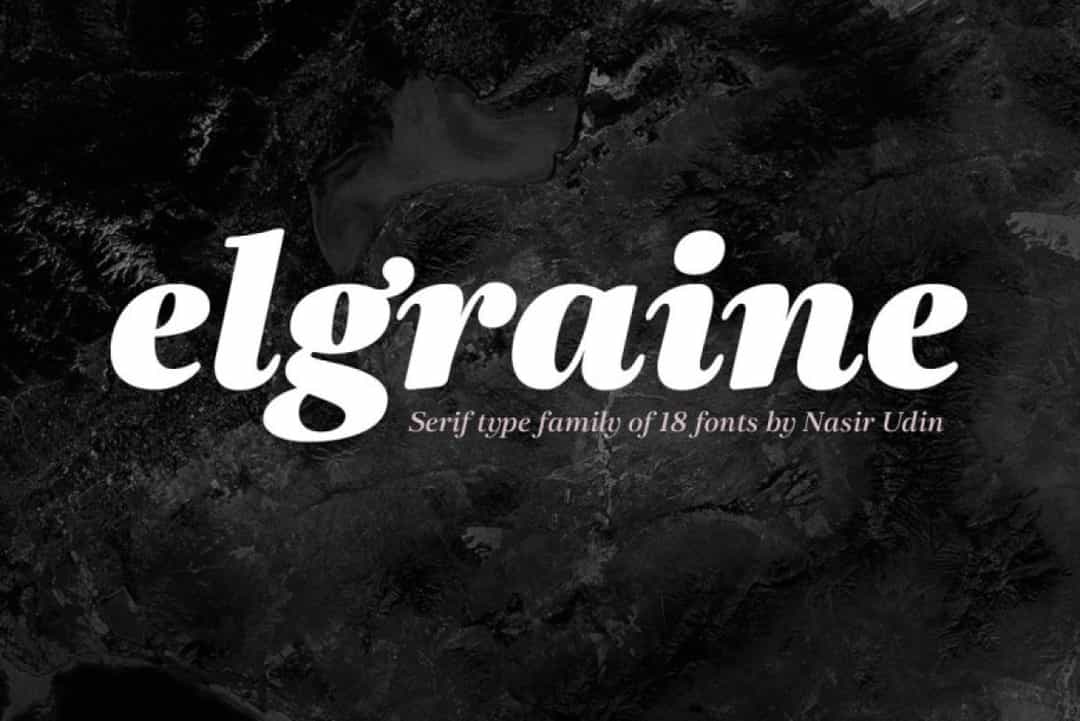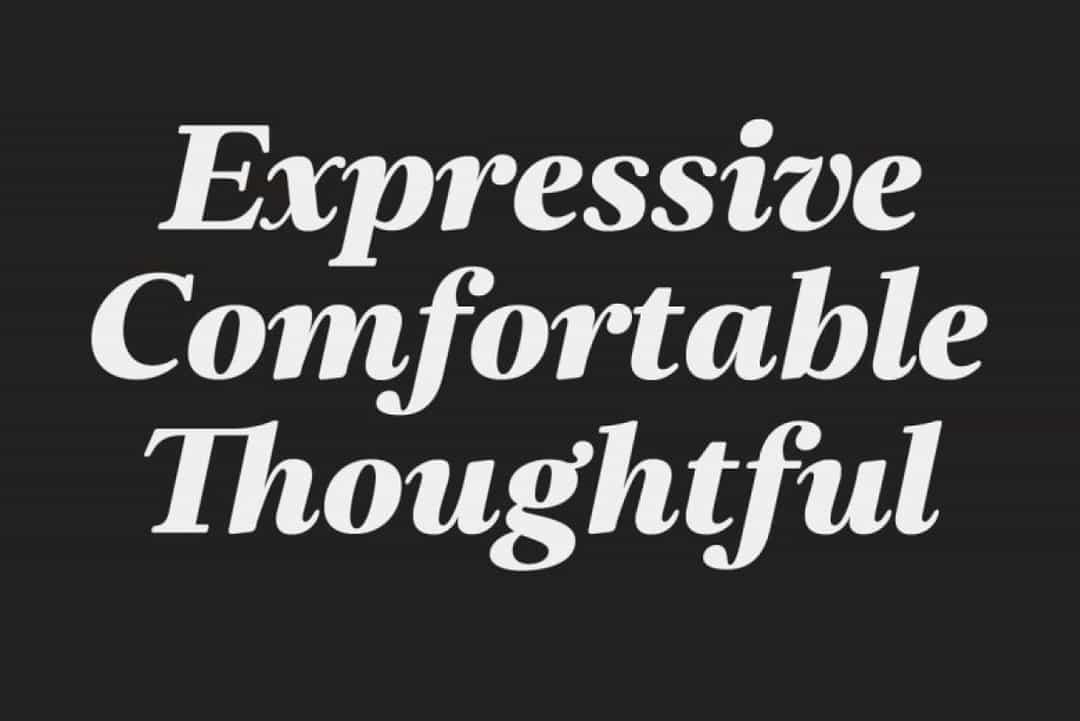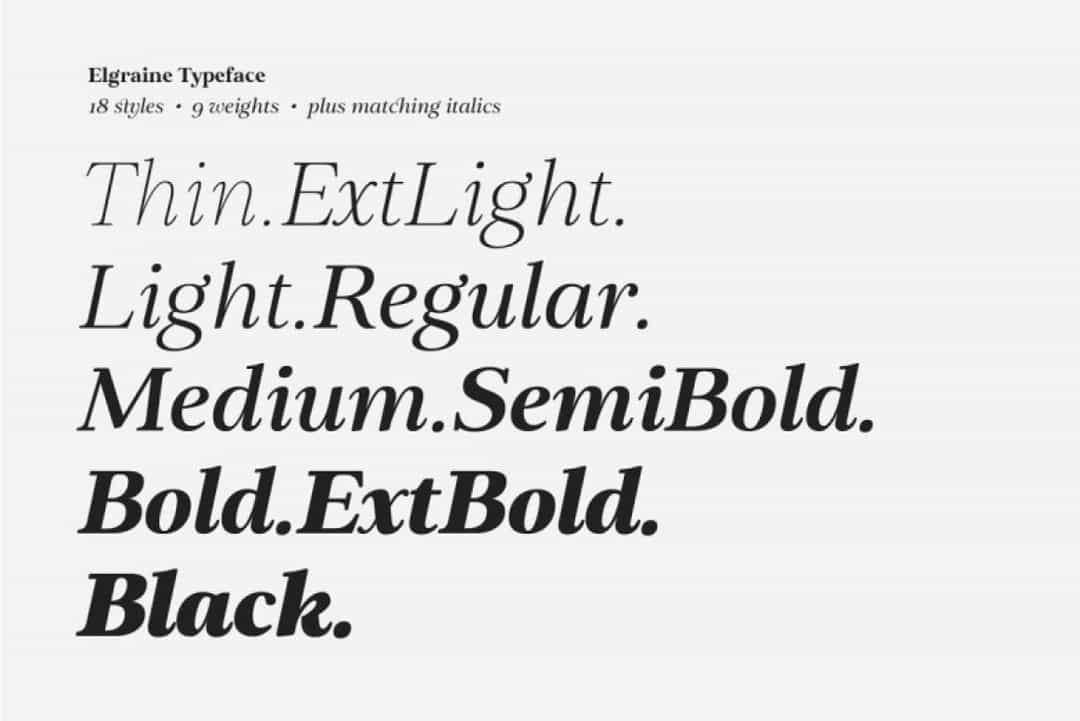
Elgraine is a serif typeface designed with classical serif and calligraphic styles combined with contemporary features. Ranging from thin to black and featuring italics, Elgraine can be used in editorial or graphic designs of various types.